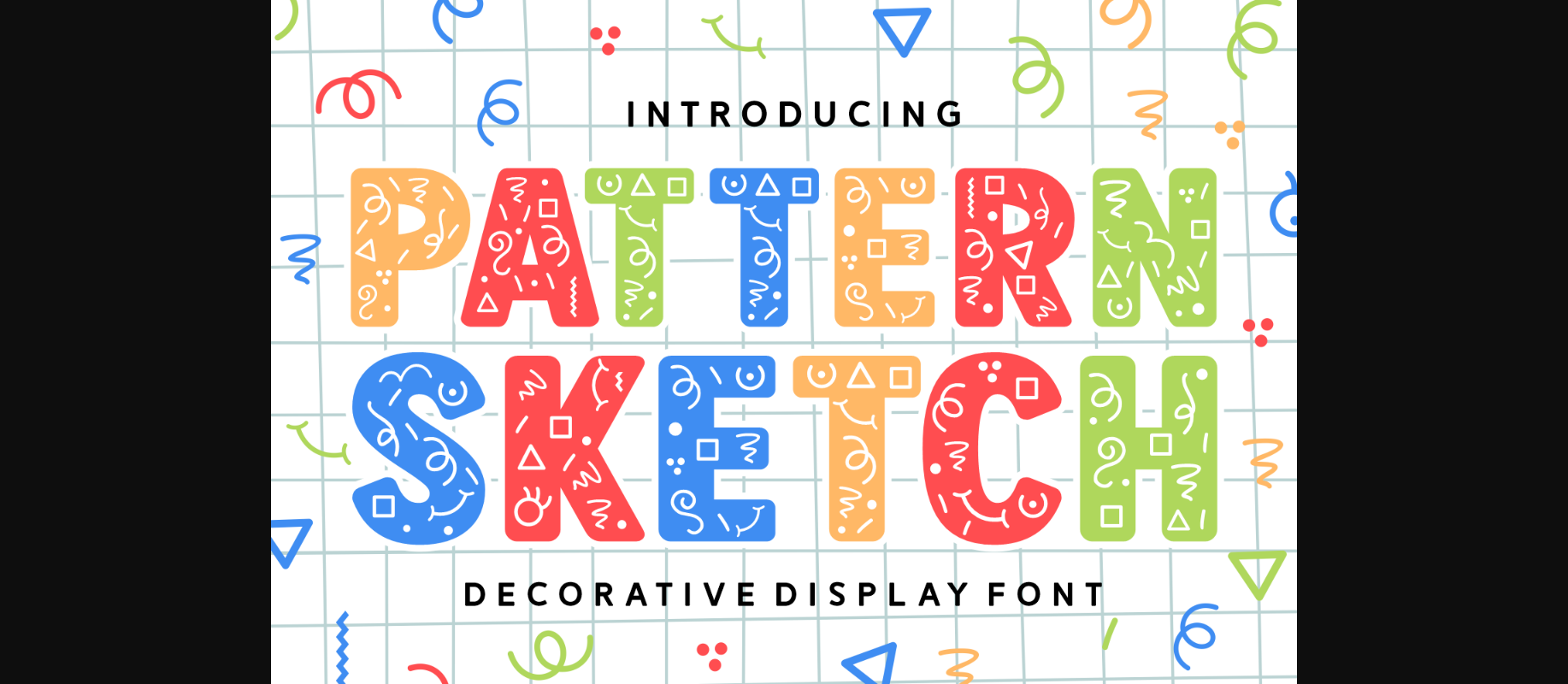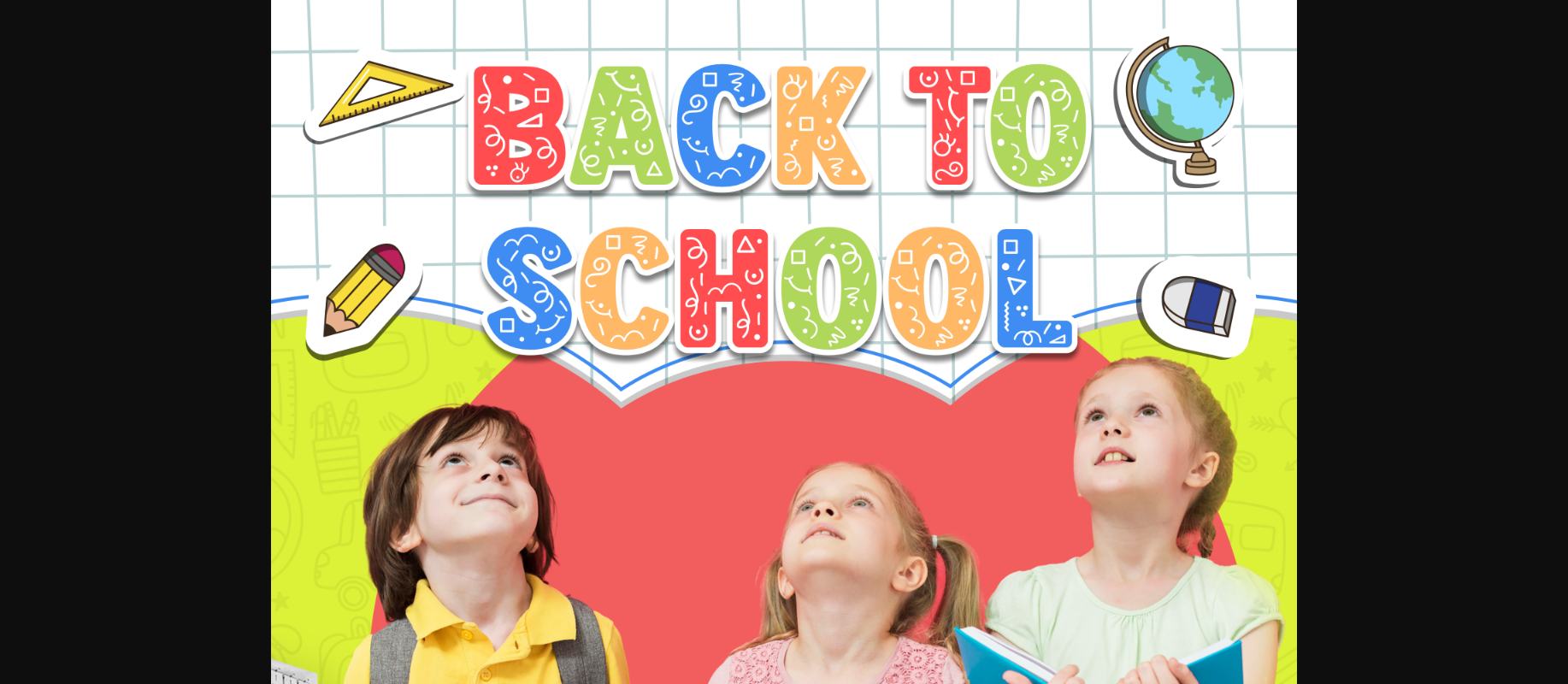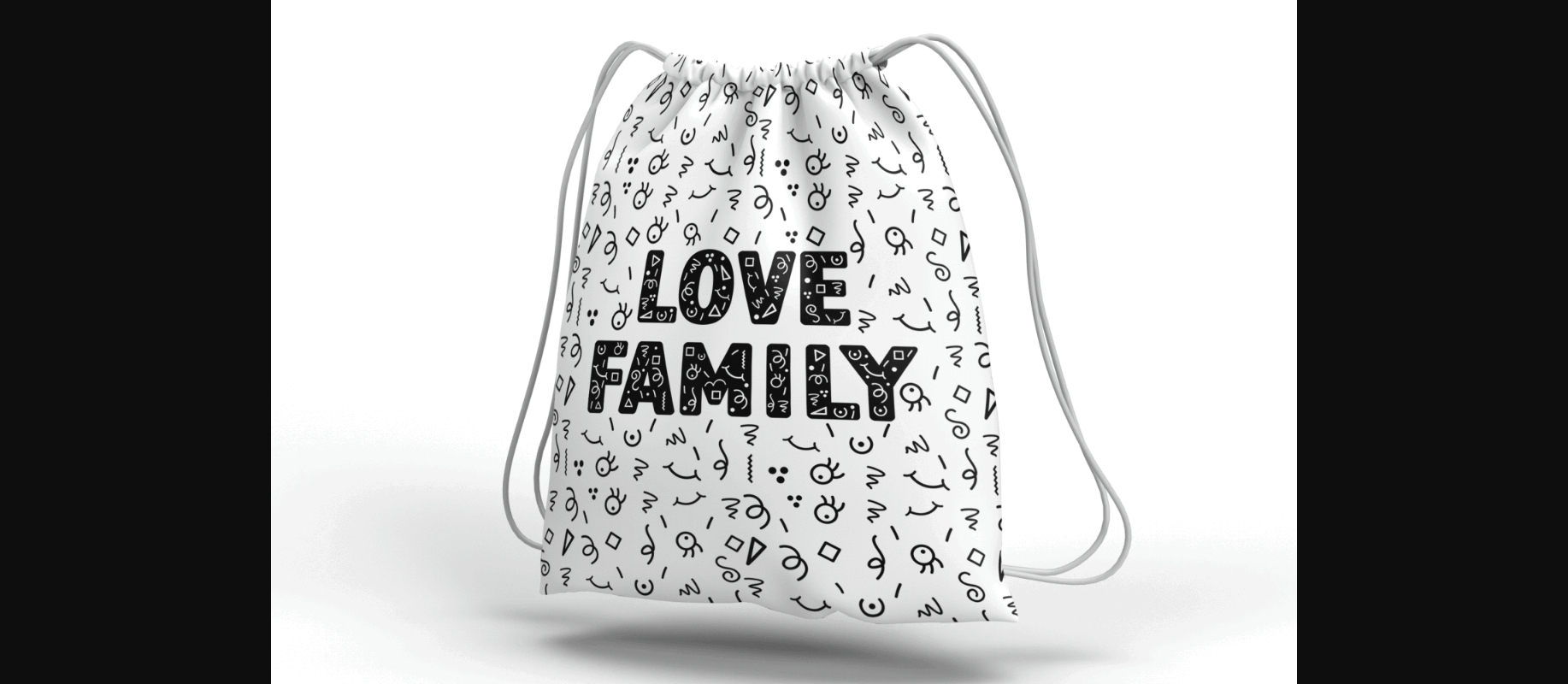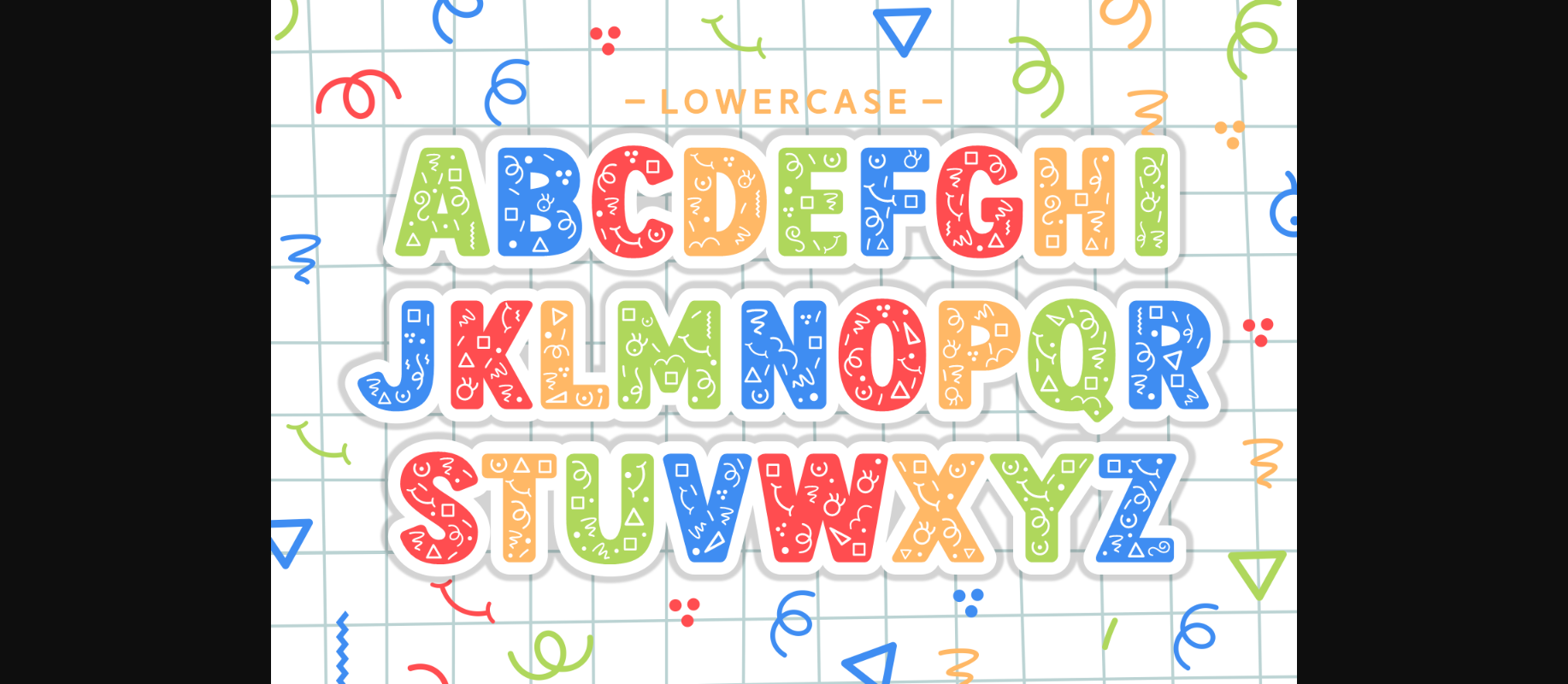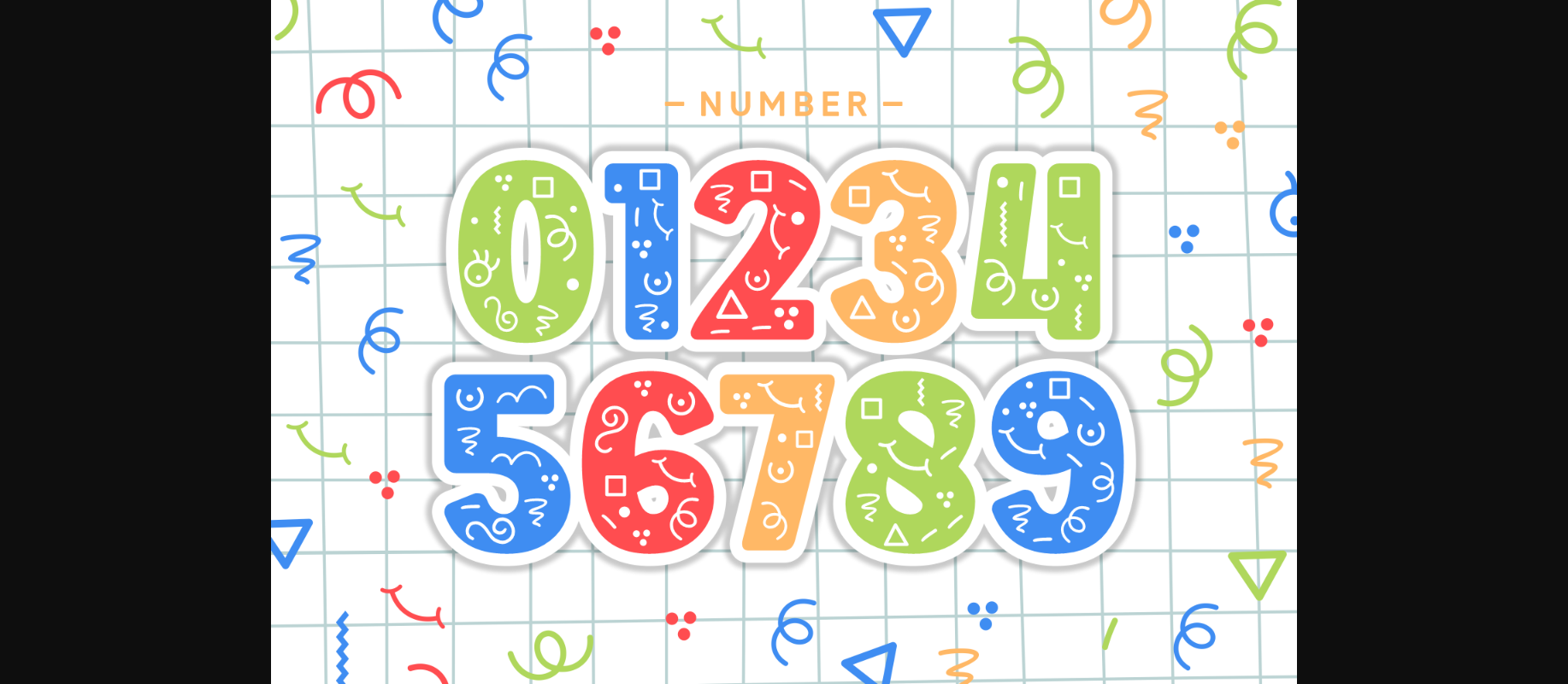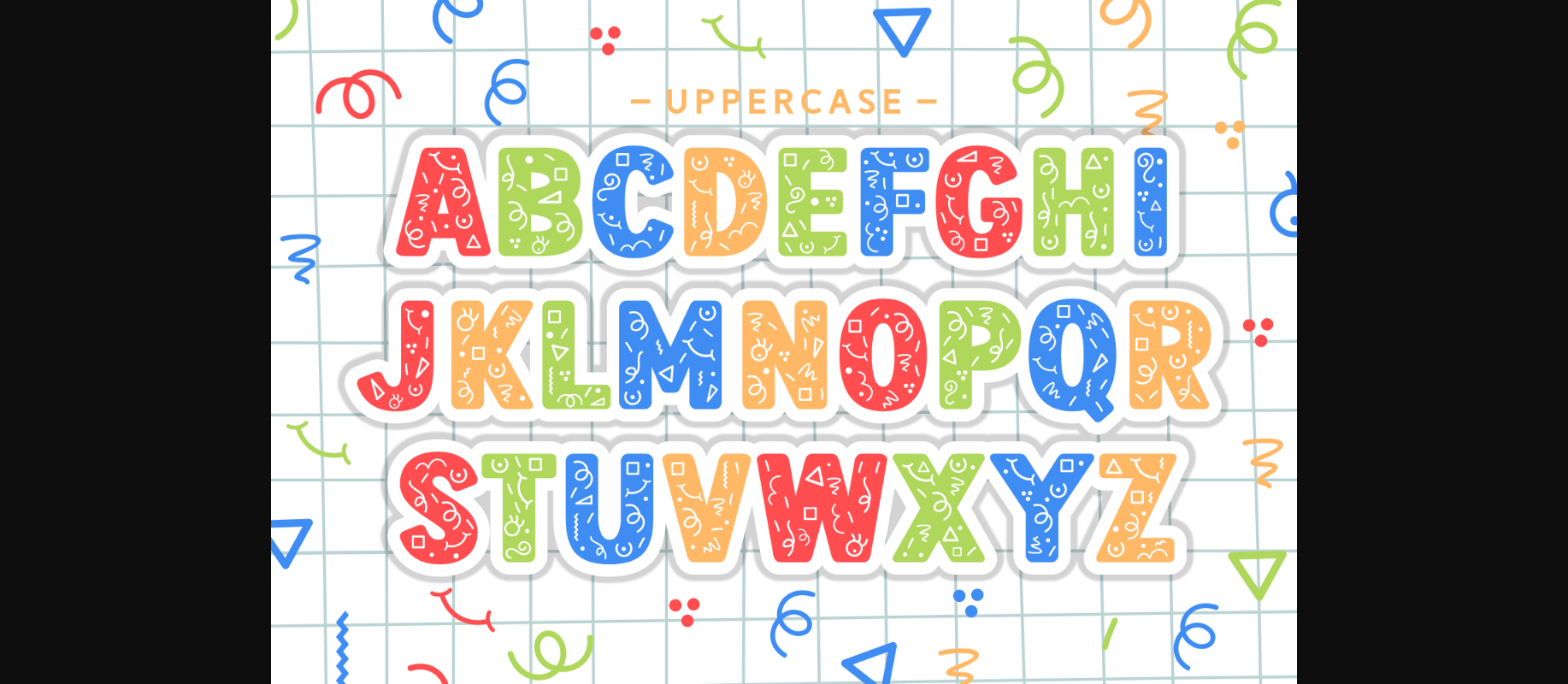
HomeDecorative FontsPattern Sketch Font Decorative Fonts Pattern Sketch Font FacebookXPinterestWhatsApp 1 of 8 ... Pattern Sketch Font Poster 2... Pattern Sketch Font Poster 3... Pattern Sketch Font Poster 4... Pattern Sketch Font Poster 5... Pattern Sketch Font Poster 6... Pattern Sketch Font Poster 7... Pattern Sketch Font Poster 8... About Pattern Sketch Font Pattern Sketch is a playful and quirky decorative font perfect for children’s crafts, teaching materials, book covers, tote bags, and many more. Add it to your most creative ideas, and notice how it makes them stand out! DOWNLOAD NOW People also explored Relathive Font Mother Caramel Font Honest Maria Font Digizen Font Bridget Font Historia Font Hello Sweetday Font Solution Font Madinah Authentic Font 326 0 TagsPattern Sketch Font Previous articleSuperstar FontNext articlePumpkin Monogram Font LEAVE A REPLY Cancel reply Comment: Please enter your comment! Name:* Please enter your name here Email:* You have entered an incorrect email address! Please enter your email address here Website: Save my name, email, and website in this browser for the next time I comment. Personal Use Free Beloved Script Personal Use Free Read more about this font Proudly Personal Use Free Read more about this font Rheiborn Personal Use Free Read more about this font Bashira Personal Use Free Read more about this font BLOG How to Install and Use Fonts on Windows, macOS, and Web Projects How to Install and Use Fonts on Windows, macOS, and Web Projects Fonts are a crucial part of design and branding. Whether you’re designing a... Using Fonts in Digital Marketing: Tips to Strengthen Your Brand Identity Elegant Wedding Invitation Fonts – Handwritten & Script Fonts Modern Sans-Serif Fonts That Brands Love in 2025